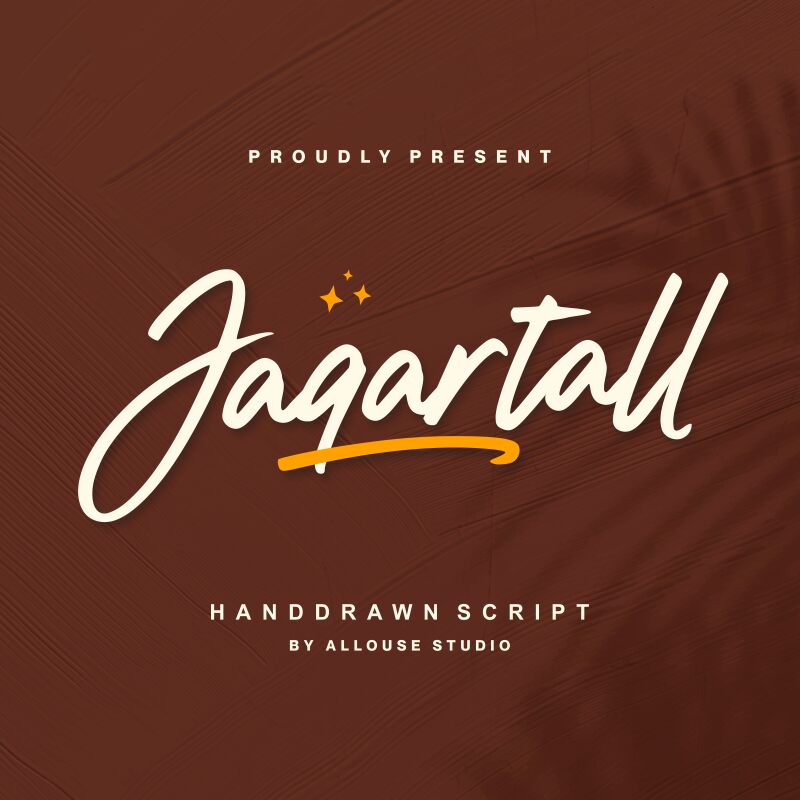
Jaqartall
Meet Jaqartall, the semi-light, semi-condensed handwritten font designed by Allouse Studio. Perfect for adding a personal touch to any project, its flowing strokes and unique character make it ideal for anything from wedding invitations to social media graphics. The natural imperfections of this font give it a human touch that is sure to stand out in any design. Use Jaqartall for branding projects or create stunning logos with its distinctive style. This versatile typeface is also perfect for editorial designs and packaging labels that require elegant yet relaxed lettering. Try Jaqartall today and elevate your designs with its charming personality!